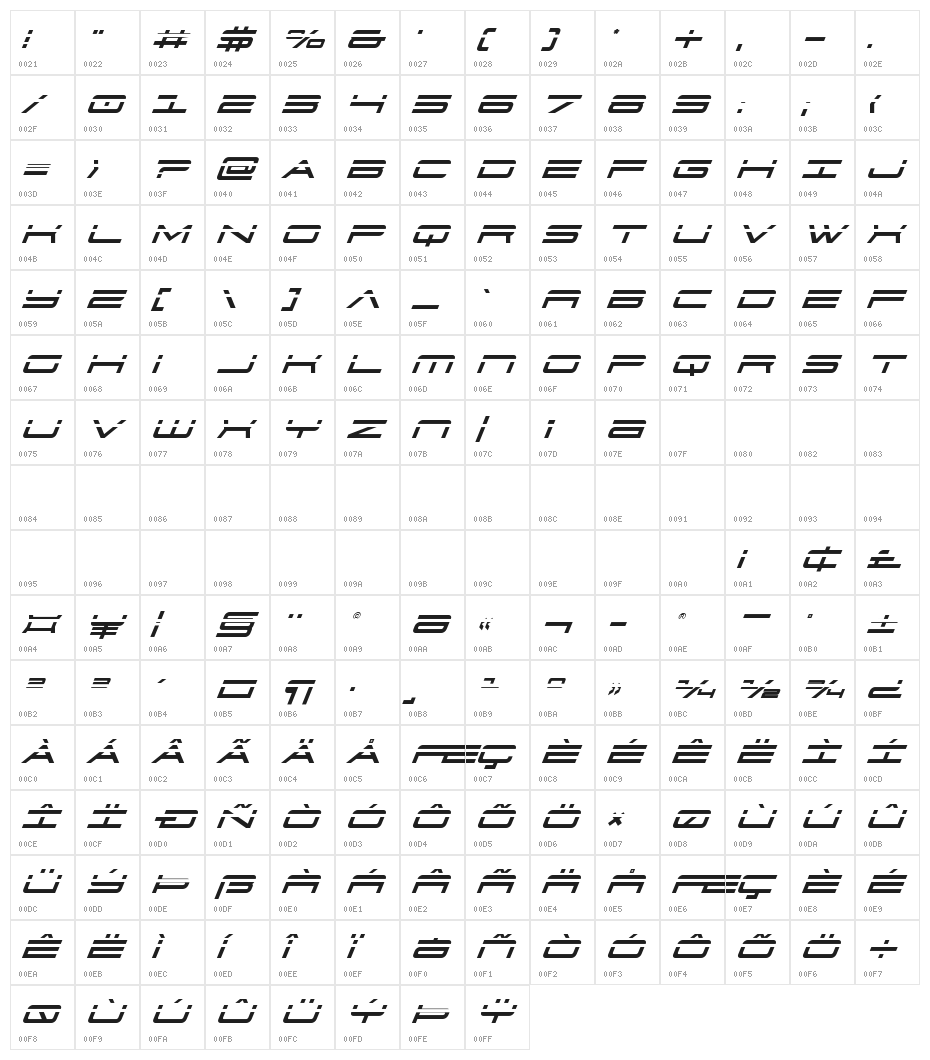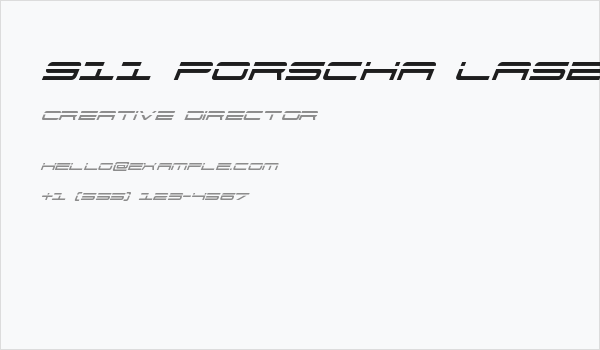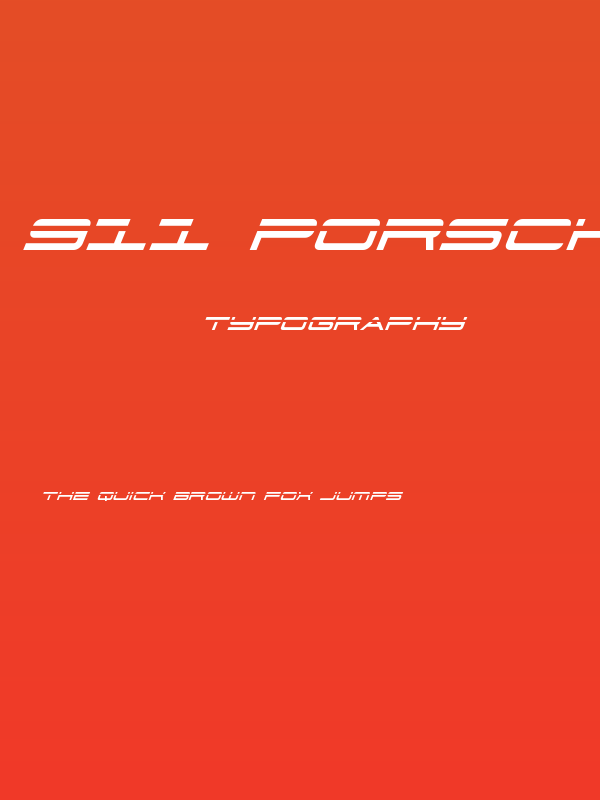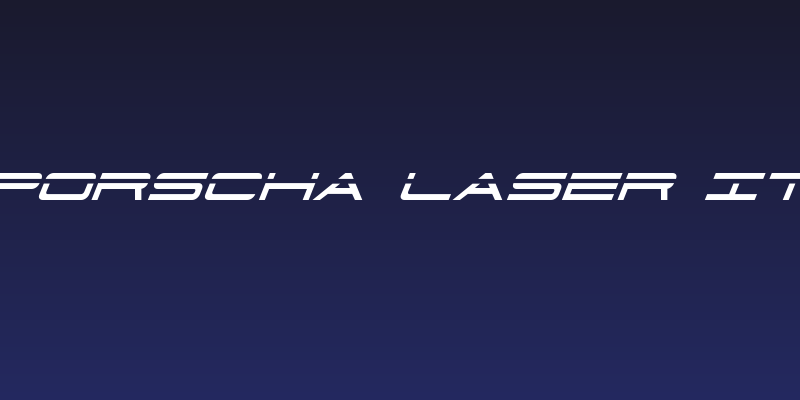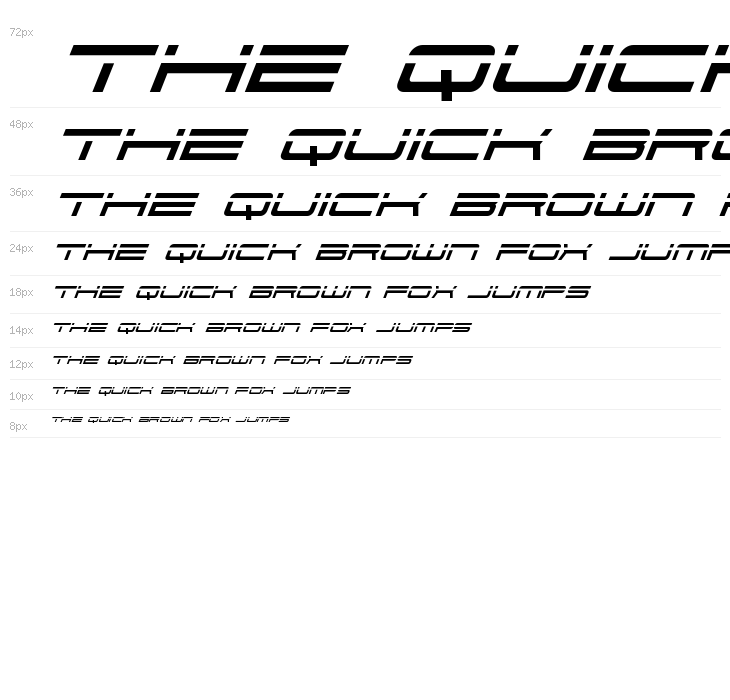
911 Porscha Laser Italic Font
911 Porscha Laser Italic Description
This font features a sleek, futuristic design with a distinct italic slant, giving it a dynamic and fast-paced appearance. The characters are constructed with sharp angles and clean lines, creating a sense of motion and modernity. The uppercase and lowercase letters maintain a consistent style, with a uniform height that enhances readability. The numerals and special characters are designed to match the overall aesthetic, ensuring a cohesive look across all text. This font is ideal for projects that require a contemporary and energetic feel.
| Proposed Projects | Ideal for automotive branding, technology advertisements, sports event promotions, and modern digital interfaces. |